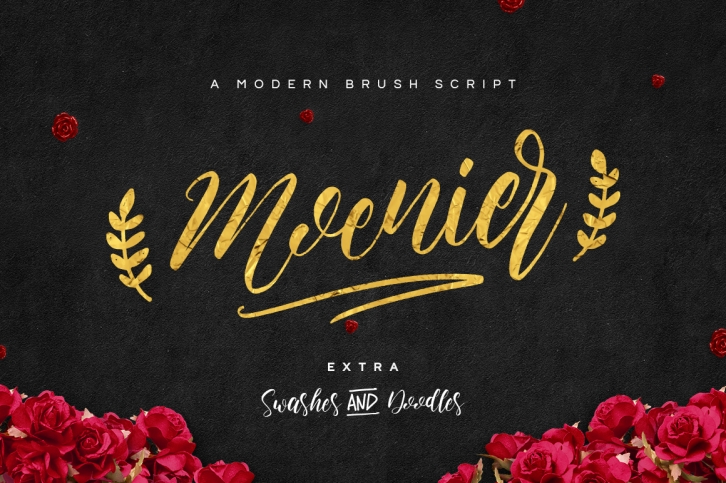
Moenier Script is a gorgeous font that was realeased on July 31, 2017. The font can be used in many style contexts and design environments. Perfect for invitations, magazines, websites, logos, and more! It was designed by Hindia Studio and the file size is 11.42 MB. Thanks for checking out this font!